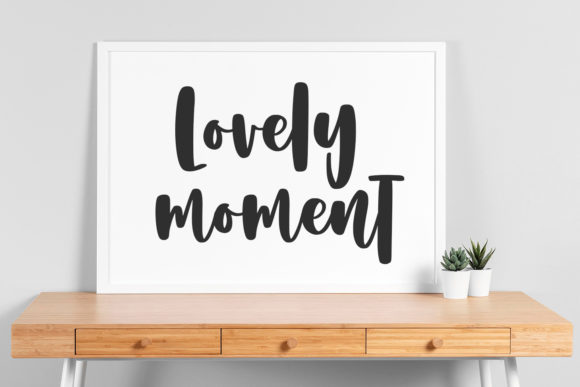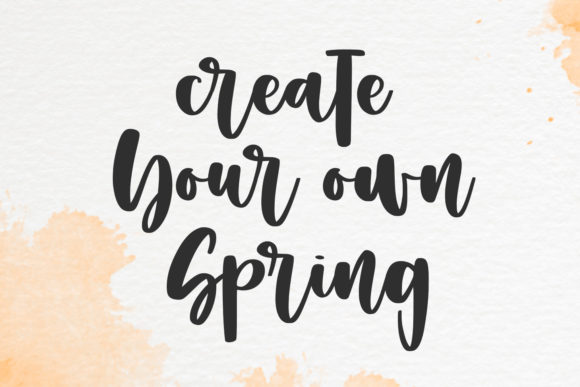
Splatters Font
db-ku.com - Script & Handwritten -- Splatters is a unique and trendy calligraphy font. It is great for quotes, t-shirt designs, mugs, tote bag designs, cards, banners, social media, and various other designs.